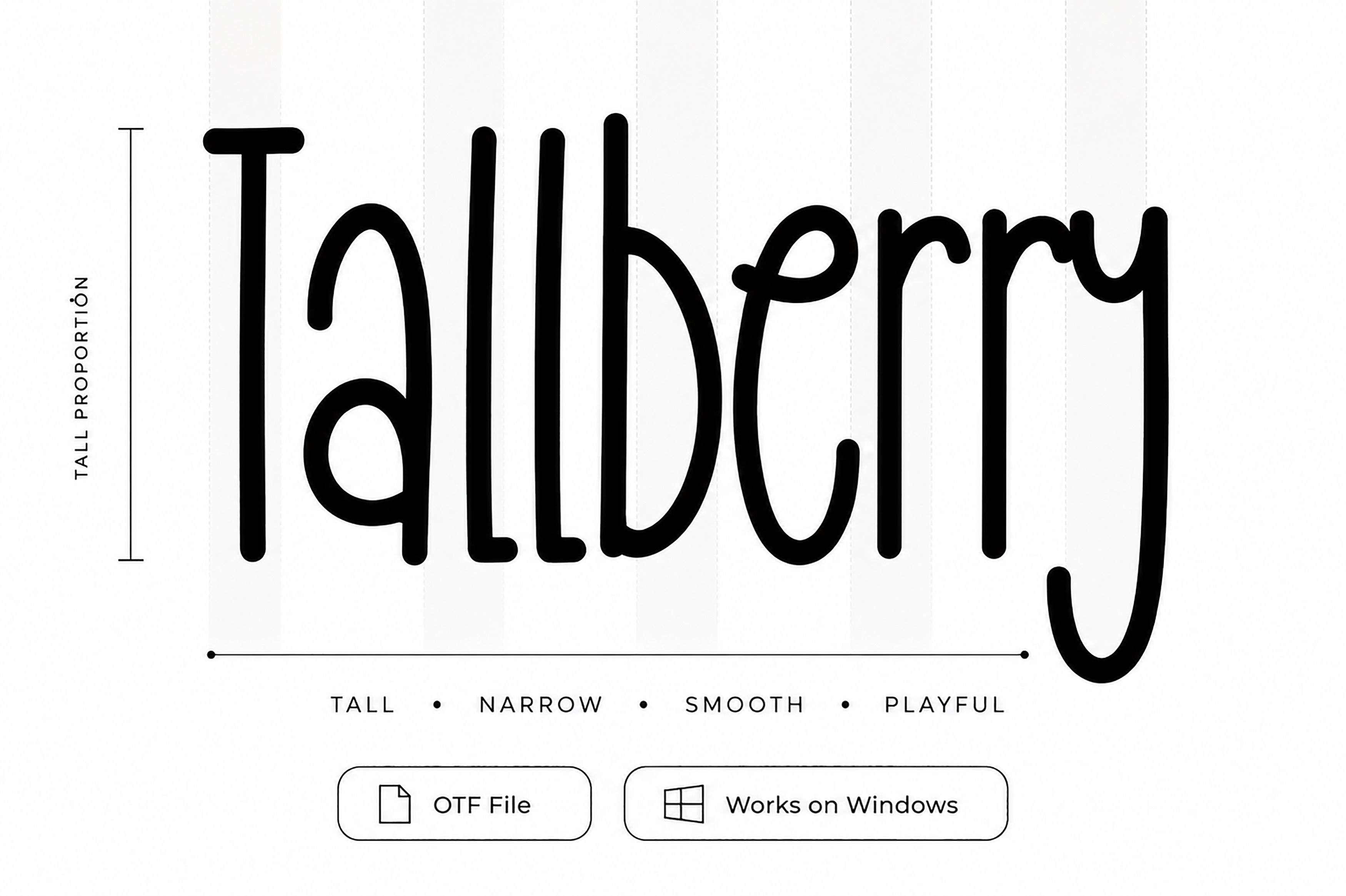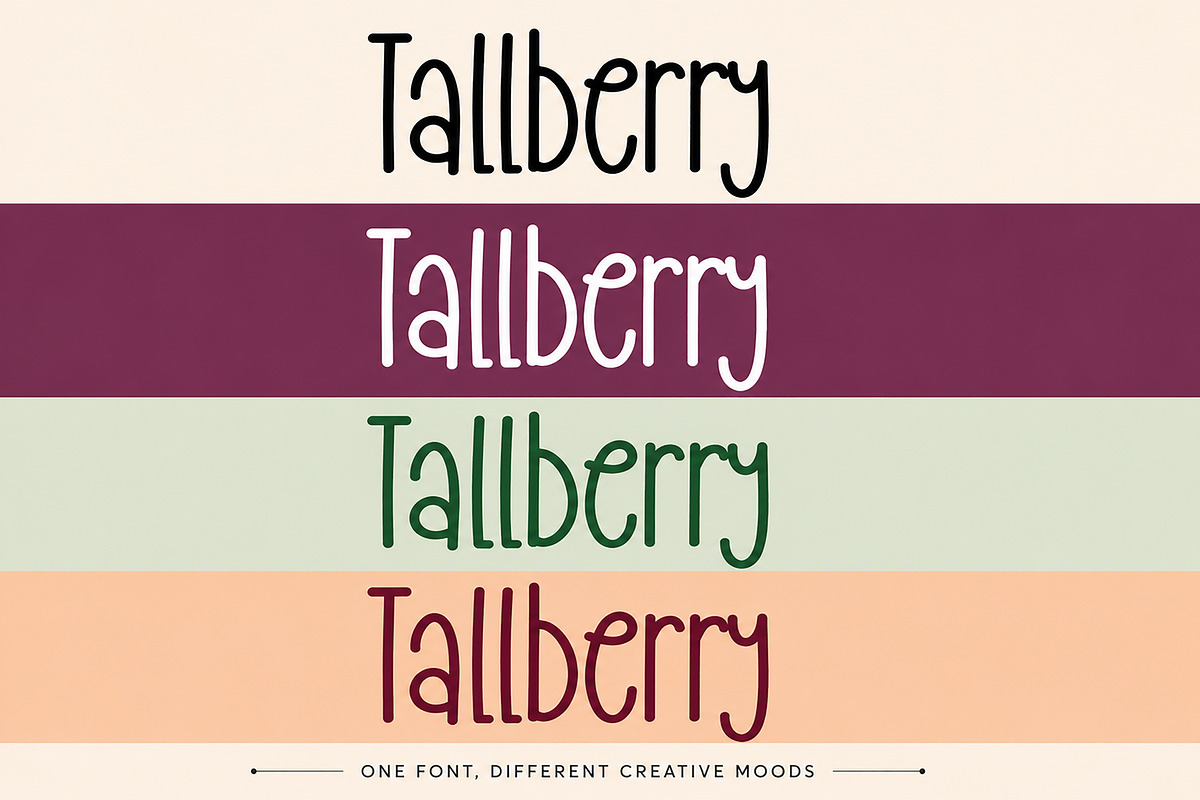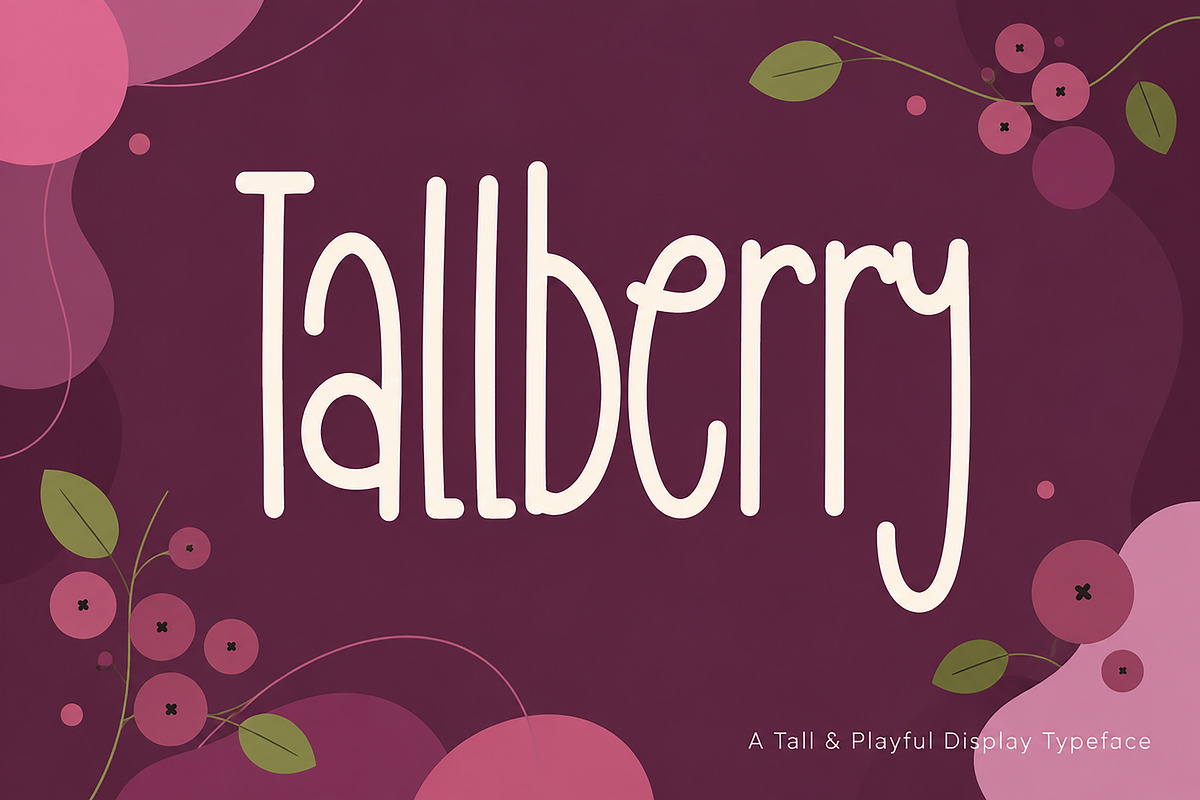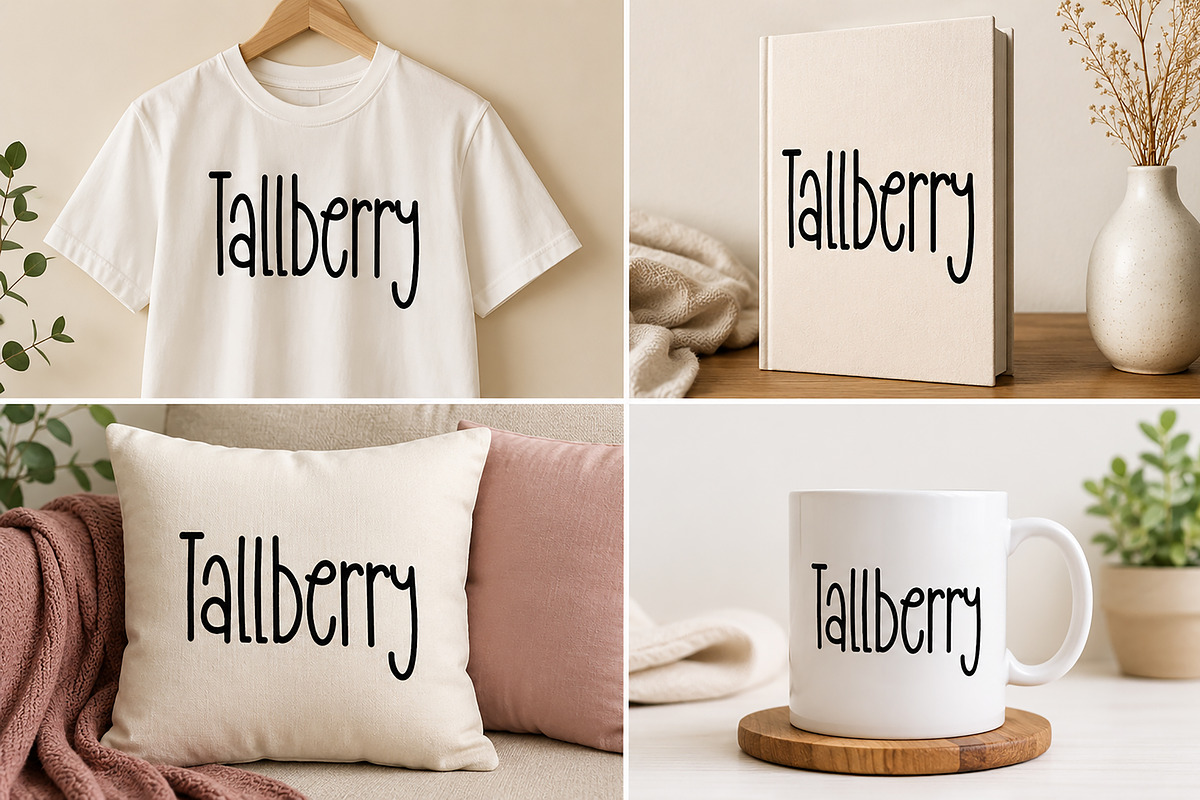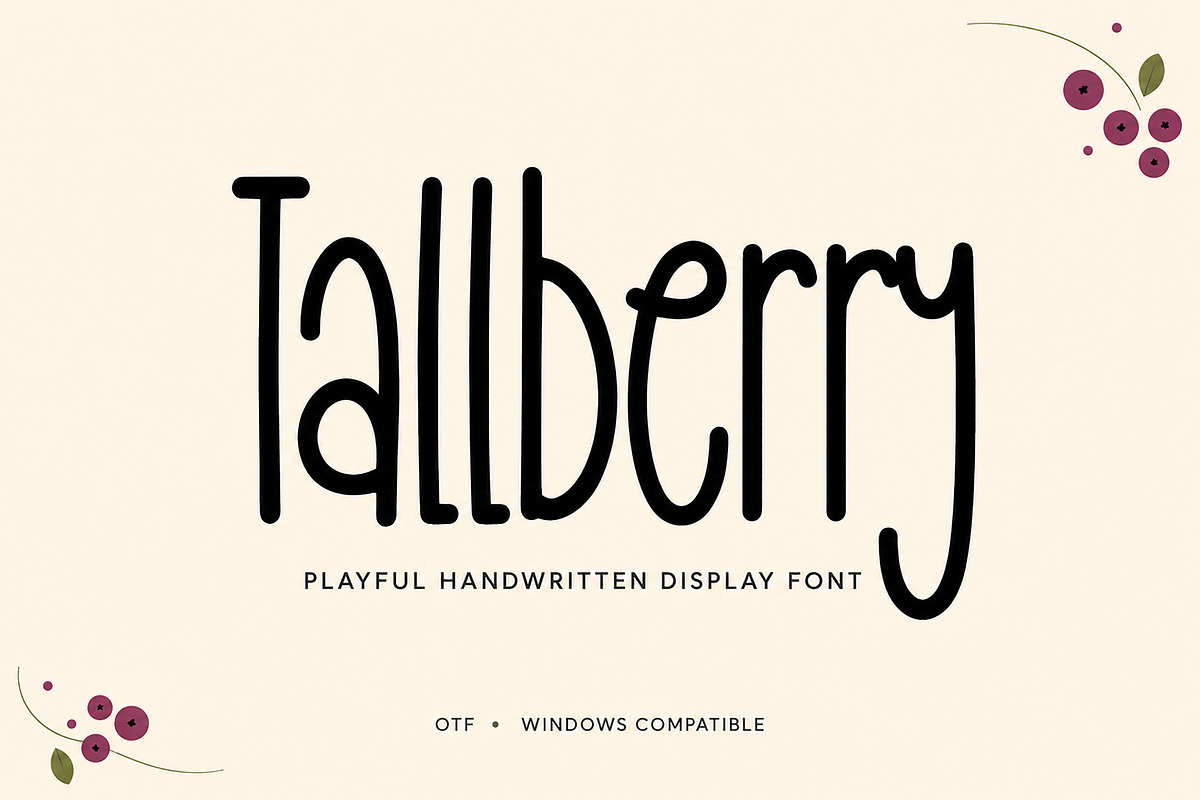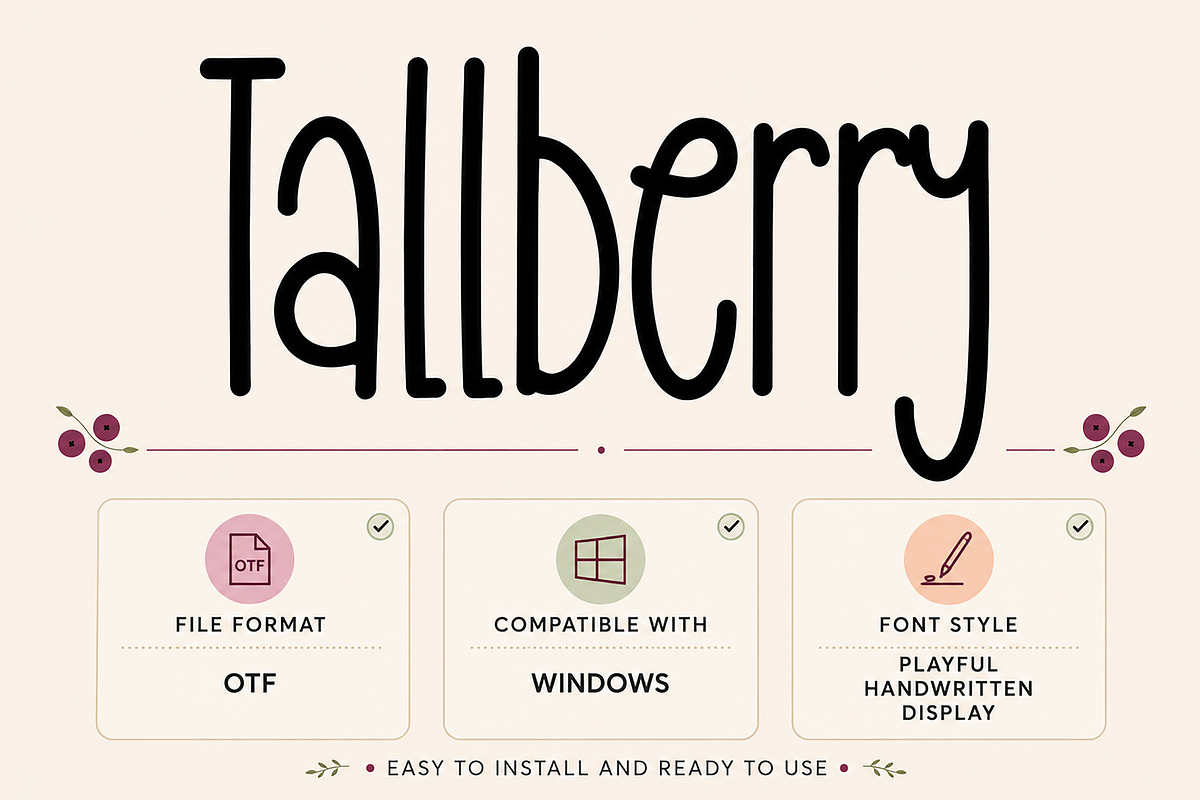
Tallberry – Playful Handwritten Font
Tallberry – Playful Handwritten Display Font
Tallberry is a playful handwritten display font with a tall, narrow, and clean letterform that brings a fun yet modern personality to your designs. Its unique hand-drawn style makes it perfect for eye-catching headlines, branding, packaging, logos, social media graphics, greeting cards, book covers, posters, apparel, mugs, pillows, stickers, and creative craft projects.
Designed with simplicity and readability in mind, Tallberry delivers a friendly and charming look while maintaining a stylish appearance. Whether you're creating feminine branding, kids' products, lifestyle designs, or handmade-themed projects, this font adds warmth and character to every composition.
Playful Handwritten Display Font
Tall & Narrow Letter Style
Clean and Easy to Read
Perfect for Headlines & Branding
Ideal for Logos & Packaging
Great for Social Media Graphics
Suitable for T-Shirts, Mugs, Pillows & Merchandise